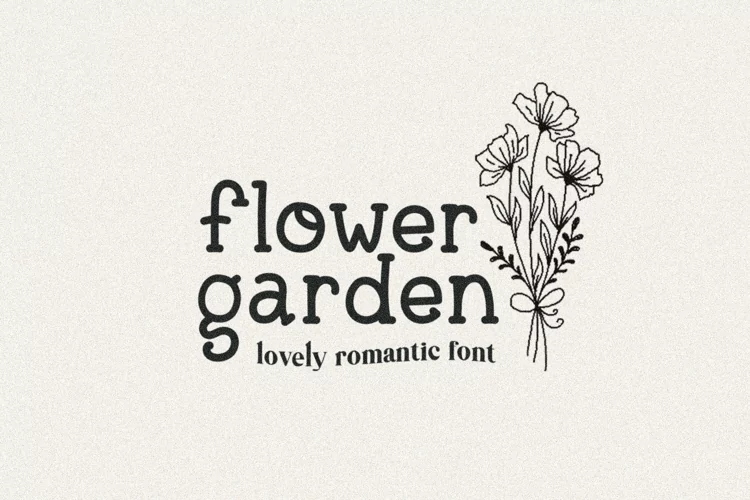
Flower Garden - Hand Lettered - Boho Style Font
Use this cute & boho style font for all of your creative needs! Making SVGs, tumblers, logo design, graphic design projects, shirts, wood signs, cards, social media, stickers, blog posts, and much more!
This is a smooth font - perfect for cut machines like Cricut and Silhouette!
This font has over 30 ligatures! These are unique characters that give the font have more character!